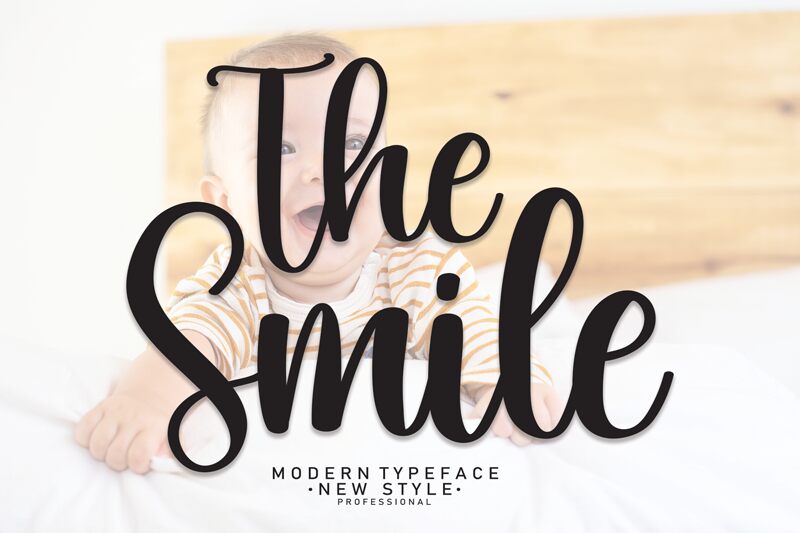
The Smile
The Smile, envisioned by the creative minds at Scratchones, brings a touch of modern calligraphy to your projects with its semi-bold weight. This font dances between classic elegance and contemporary flair, making it an ideal choice for invitations, branding, and advertising that demand a personal touch. Its flowing lines and playful curves evoke a sense of joy and sophistication, ensuring that your design speaks with both warmth and style.
Unleash The Smile's potential to infuse your work with character that truly stands out.
the latest style letters are perfect for wall displays, wedding invitations, social media post logos,
advertisements, product packaging, product designs, labels, photography, watermarks, invitations, stationery, and any project that requires taste handwriting.